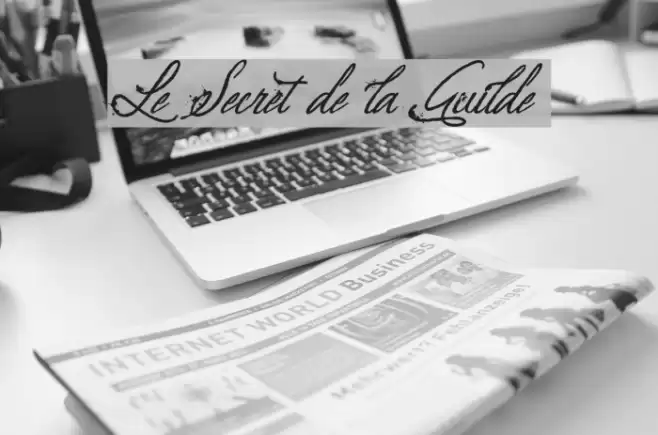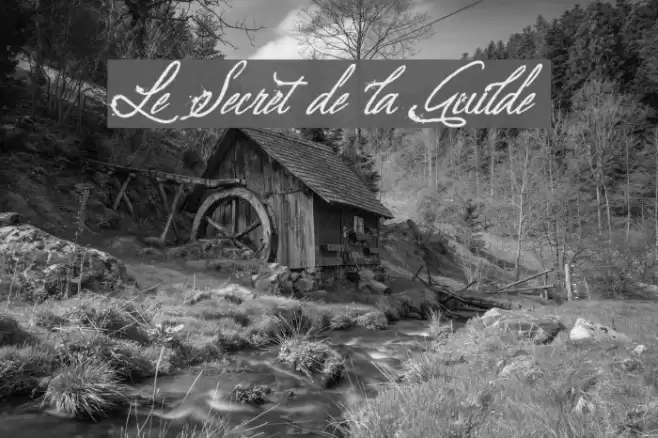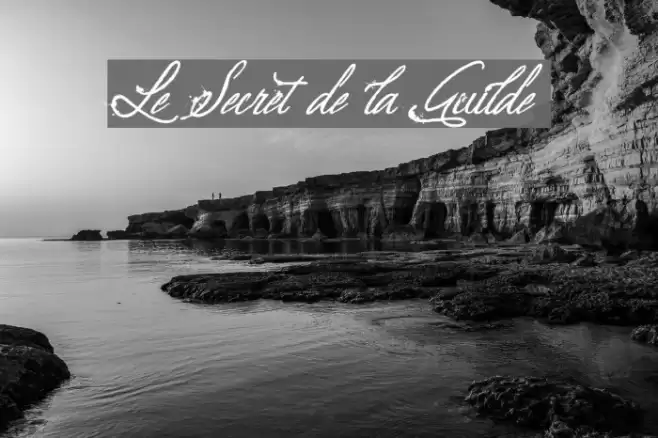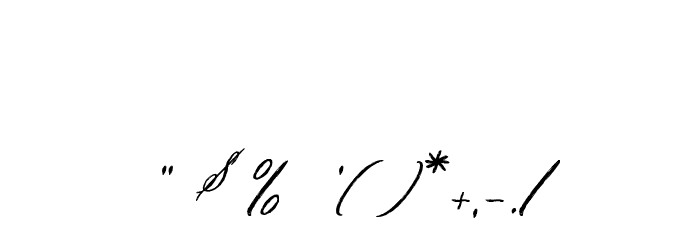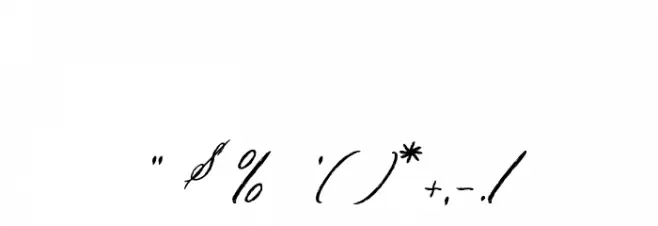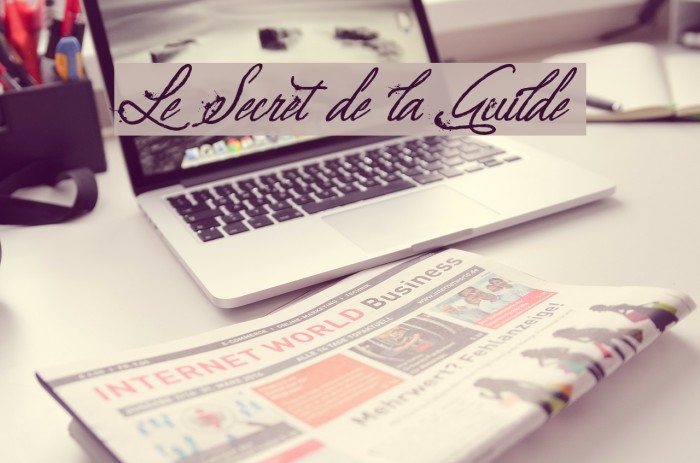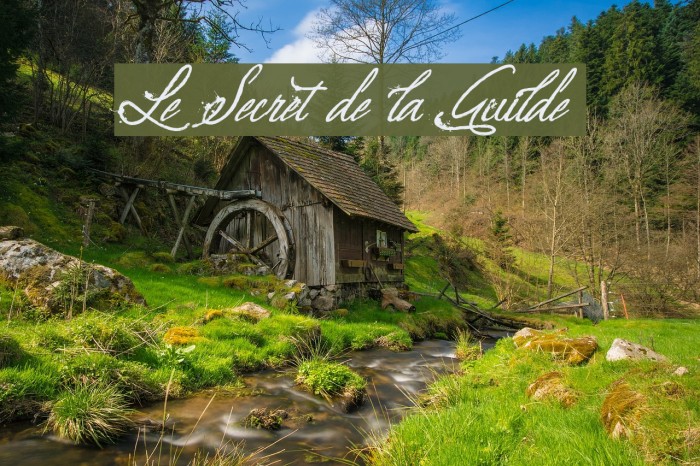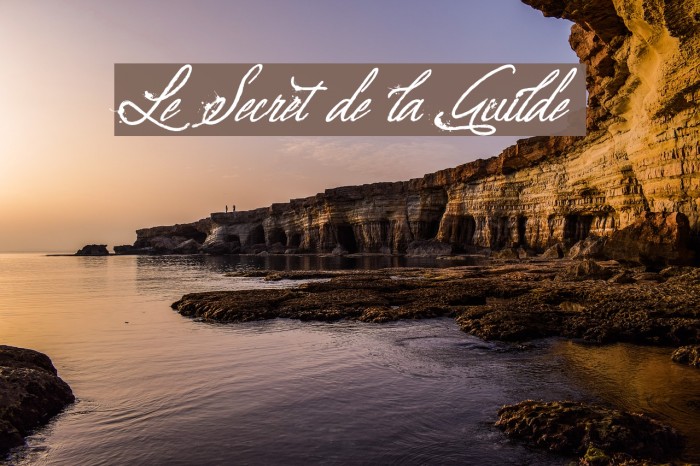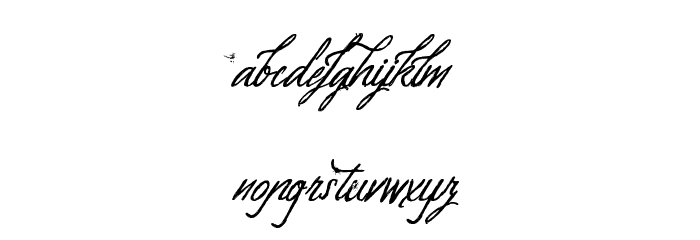
Le Secret de la Guilde Font
Le Secret de la Guilde Description
This elegant script font features a flowing, cursive style with intricate loops and flourishes. The uppercase letters are grand and sweeping, while the lowercase letters maintain a consistent, graceful flow. The font exudes a sense of sophistication and is reminiscent of classic calligraphy. The numerals and special characters are designed to match the ornate style of the letters, making it suitable for decorative purposes. The overall appearance is both artistic and refined, ideal for projects that require a touch of elegance.
An elegant, cursive script font with intricate loops and flourishes from Uncategorized fonts.
- Proposed Projects: Wedding invitations, formal event programs, elegant branding, and luxury product packaging.
- Overall Style: Classic
- Use Case: Logos, Invitations, Decorative text